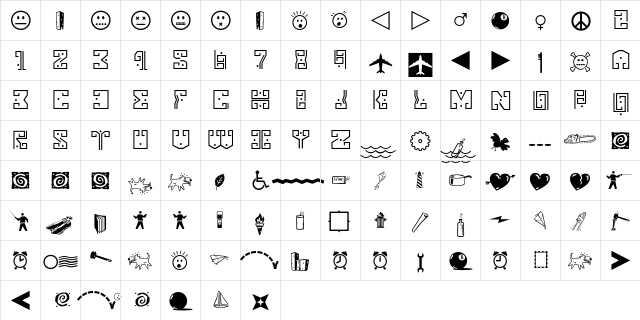
AIEclecticTwo Regular Font Preview
AIEclecticTwo Regular
Design Context for AIEclecticTwo Typeface
AIEclecticTwo is a composed and adaptable typeface that performs quietly and consistently across a wide range of design contexts.